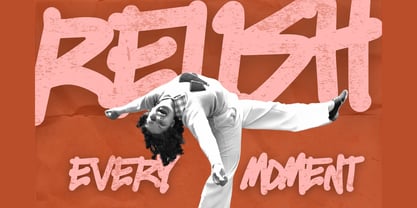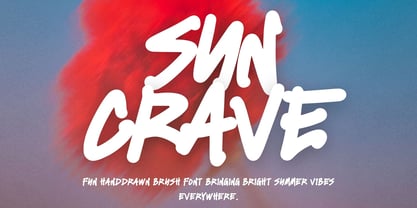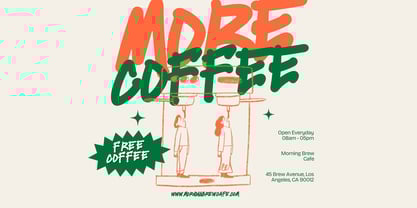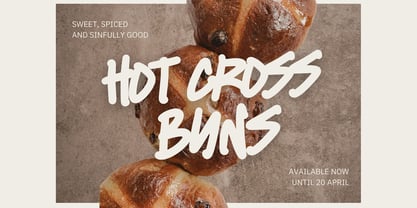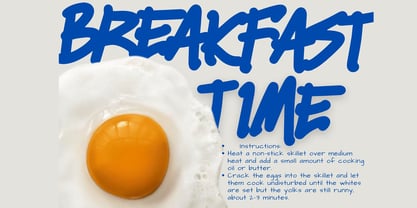
Suncrave
by Maghrib Type
The Suncrave Font Family was designed by Rizky Setyaludin and published by Maghrib Type. Suncrave contains 1 styles. More about this family
Suncrave: Bold, Energetic, and Authentically Hand-Drawn Bring a burst of bold, summer energy to your designs with Suncrave. This hand-drawn brush font seamlessly blends the raw aesthetic of street graffiti with a clean, expressive monoline touch. Every stroke is crafted to deliver a relaxed, organic, and confident vibe that demands attention. Suncrave stands out with its heavy weight and decisive brush-stroke characters, making it a premier choice for visual elements that need to pop. Its monoline characteristics provide a perfect balance between trendy "naïve art" aesthetics and functional readability. Perfect for: Headlines & Posters: Creating a strong, dynamic visual impact. Cafe & Restaurant Branding: Ideal for menus, signage, or mural art with a youthful soul. Creative Media: A top-tier choice for book titles, album covers, and cinematic movie titles. Merchandise: Highly effective for apparel, tote bags, and artisanal packaging. Make every word feel alive and spirited with Suncrave—the typographic solution for designs that dare to be different.